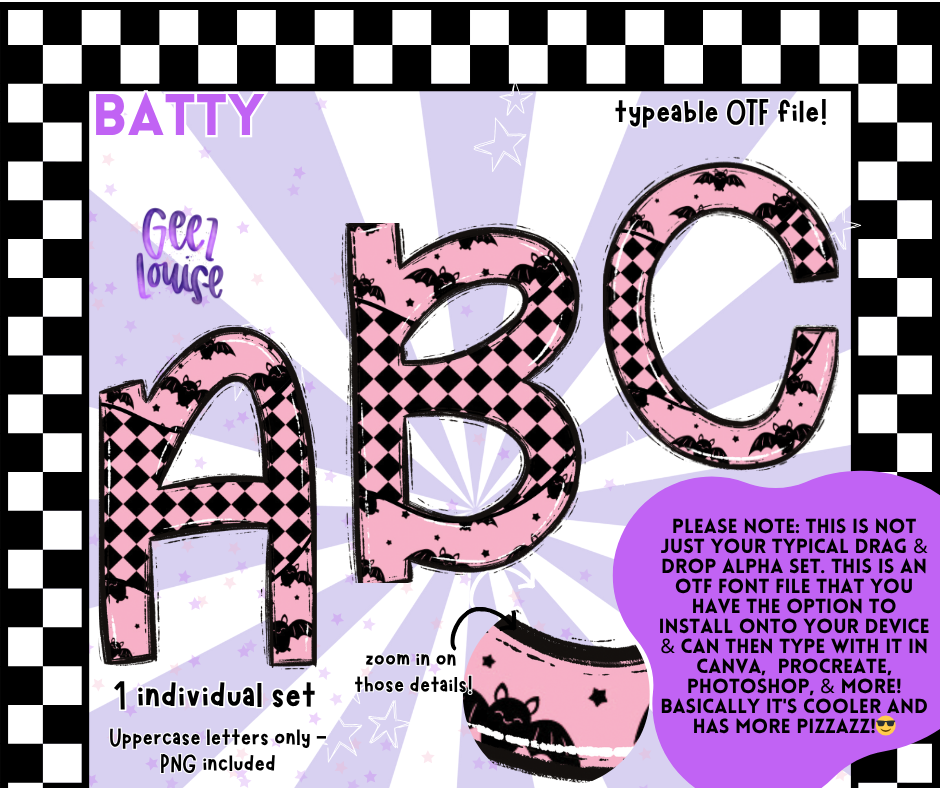
Batty Halloween OTF Font + PNG Alpha Set
Get spooky and stylish with Batty — a fang-tastically fun font featuring pink & black harlequin pattern and bat details throughout! This isn’t your basic alpha. It includes:
🦇 Uppercase letters only, made for bold, batty statements
Whether you're designing for Halloween or just living your best creepy-cute life, Batty adds instant edge and eye candy to every project.